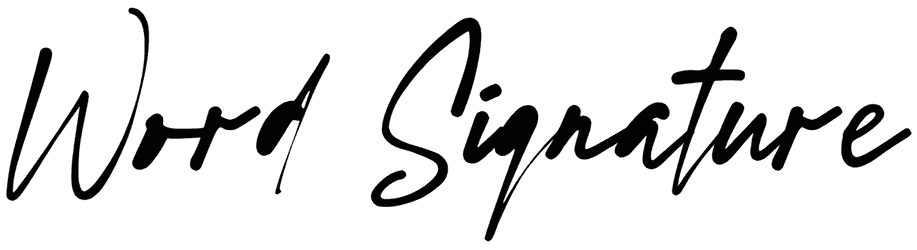
Word Signature Font
Word Signature is the perfect handwritten script font to use if you want to come across as professional to your intended audience. It has the ability to lend a more casual air to your digital creations, despite its incomprehensible letters.
This brush font is useful for everything from garments and decorations to greeting and invitation cards. We have a lot of different handwritten fonts that are very useful, and it would be a mistake not to look at them.